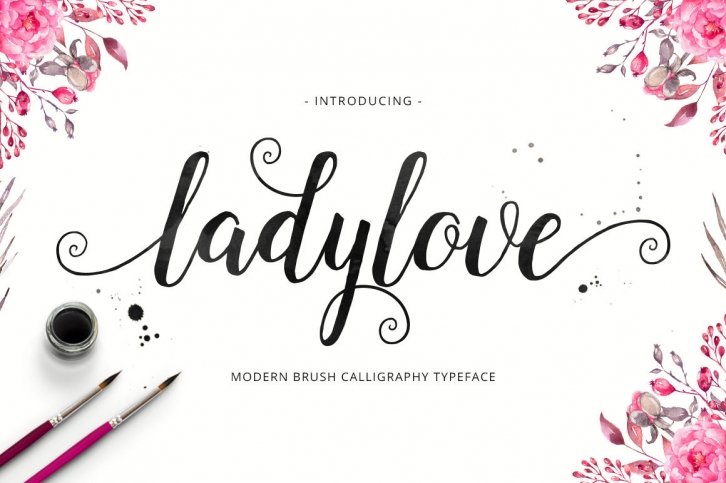
Ladylove Script - a new fresh & modern script with a Brush calligraphy-style, decorative characters and a dancing baseline! So beautiful on invitation like greeting cards, branding materials, business cards, quotes, posters, and more!
Ladylove come with 285 glyphs. The alternative characters were divided into several OpenType features such as Stylistic Sets, Contextual Alternates, and Ligature. The OpenType features can be accessed by using OpenType savvy programs such as Adobe Illustrator and Adobe InDesign.
• Initial Alternates
• Contextual Alternates
• Standard ligatures
• Unique ligatures
• Stylistic Alternates
• Stylistic sets
• Basic Latin A-Z and a-z
• International Symbols Support